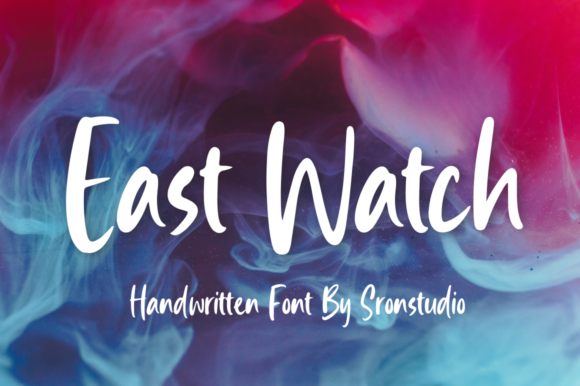
Introducing East Watch Font, the embodiment of elegance and charm for your wedding texts. This exceptional script font, meticulously crafted by Sronstudio, boasts a seamless blend of simplicity and boldness, leaving an indelible mark on every word it graces.
With its thick, handwritten letters, East Watch exudes a modern and neat aesthetic, transforming your wedding invitations, save-the-dates, and ceremony programs into breathtaking masterpieces. Its effortless flow captures the essence of romance, adding a touch of magic to the most special day of your life.
East Watch's versatility knows no bounds. Its delicate curves and graceful strokes lend themselves perfectly to a wide range of wedding designs, from classic and timeless to whimsical and contemporary. Whether you envision a rustic barn wedding, a beachside soirée, or an intimate garden ceremony, East Watch will effortlessly complement your chosen theme, adding a touch of sophistication and elegance.
With East Watch, your wedding texts will not simply convey information; they will tell a story, capturing the joy, excitement, and anticipation leading up to your big day. Your guests will be captivated by the beauty of your words, their hearts warmed by the love and care poured into each meticulously crafted letter.